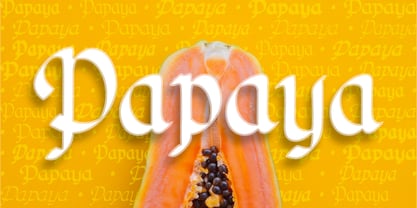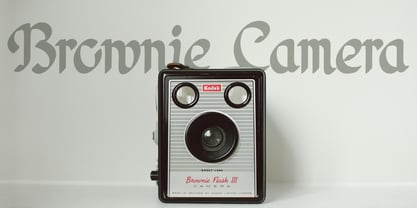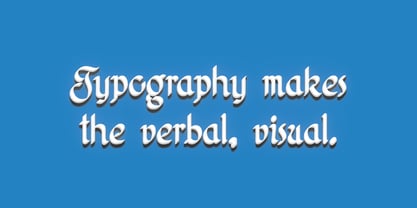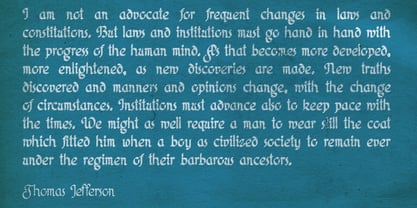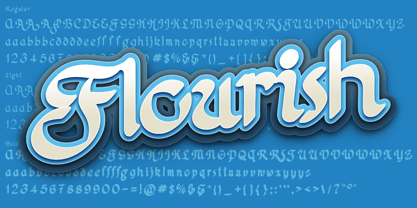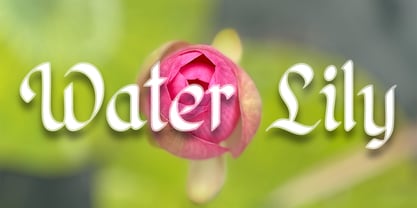
Poster Flourish
by designoMatt
The Poster Flourish Font Family was designed by Matthew Gallagher and published by designoMatt. Poster Flourish contains 12 styles and family package options. More about this family
Poster Flourish is an extension of our Poster font family. Utilizing a custom brush stroke, based on those early 20th Century sign painter’s manuals, that creates a more decorative font for custom logos, word marks, and copy blocks. Poster Flourish retains the round sweeping curves of its sister-font, Poster Print, but adds the angled brush tip stroke that creates a more variable weight that alters its strokes as it maps each glyph. This variable stroke offers a vitality to the type that can benefit most any project.
Designers: Matthew Gallagher
Foundry: designoMatt
Poster Flourish